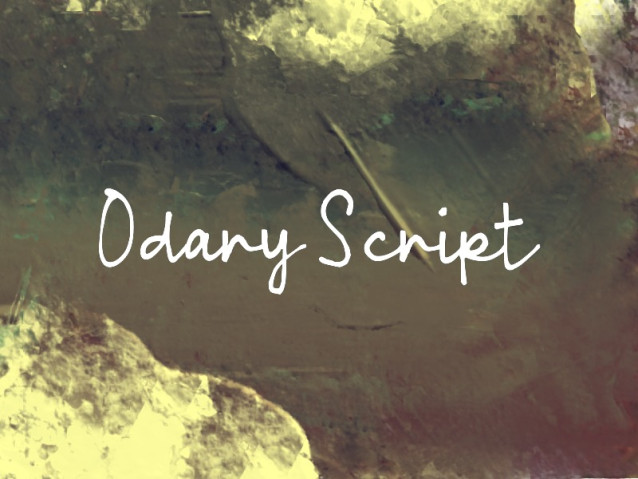
Odary Script Font
Odary Script Font is a simple and friendly handwritten font. Its natural and unique style makes it incredibly fitting to a large pool of designs. The only limit is your imagination!